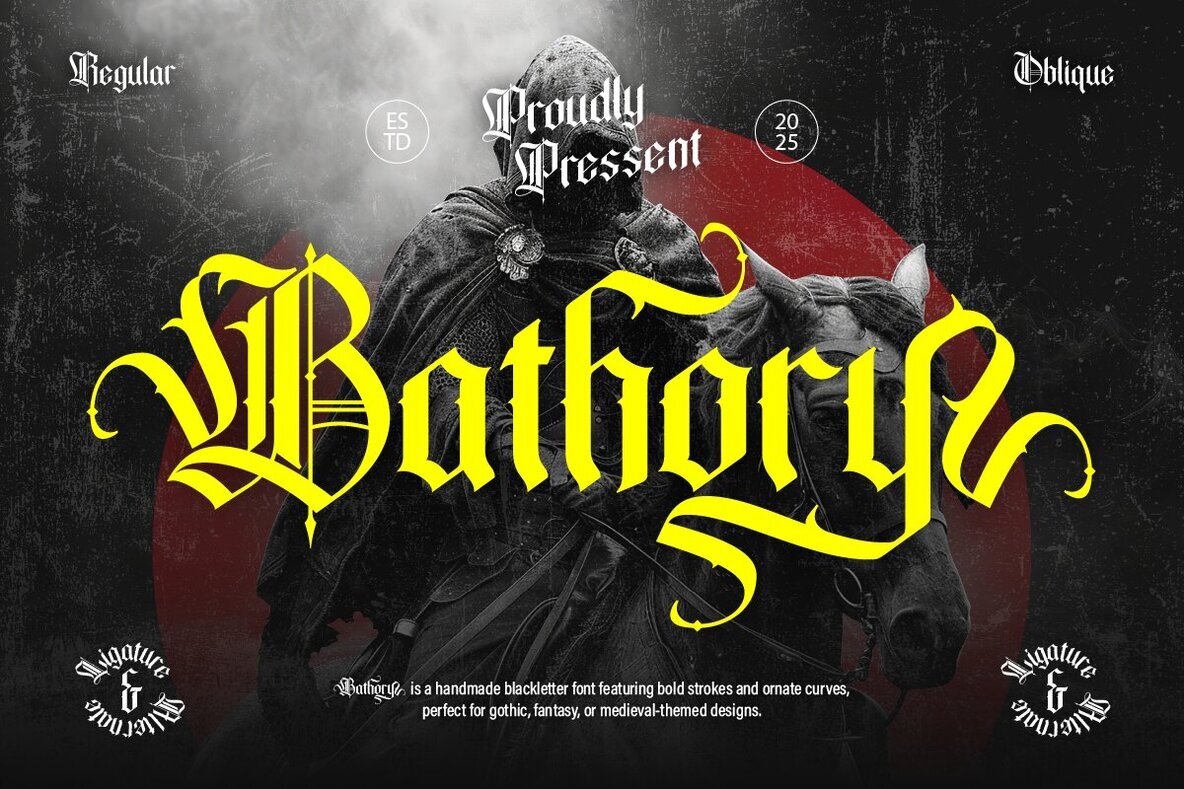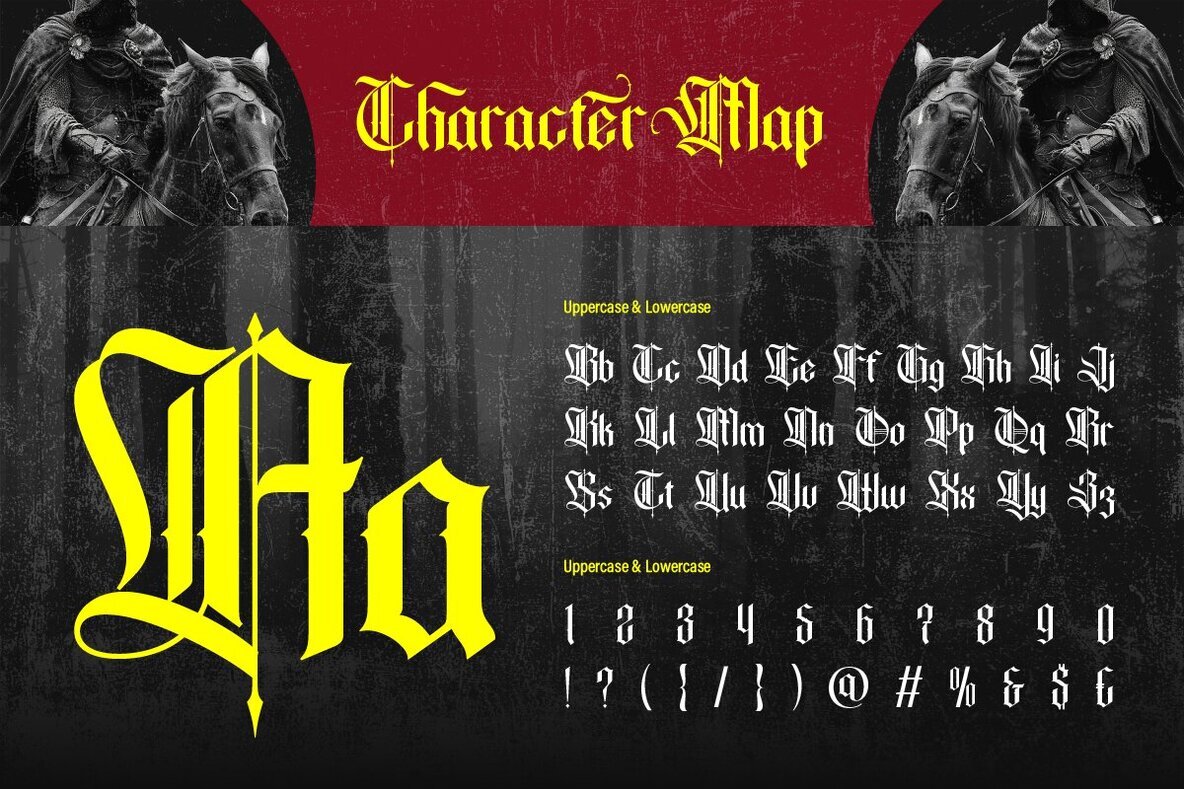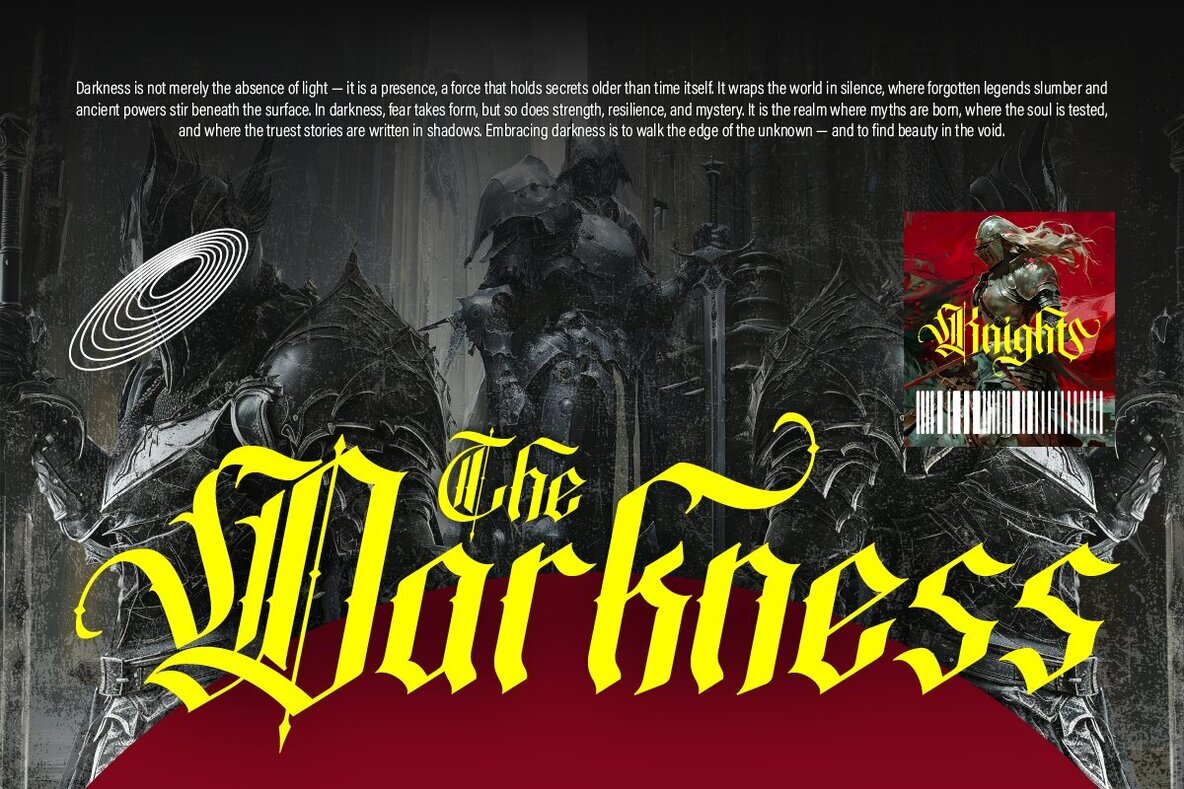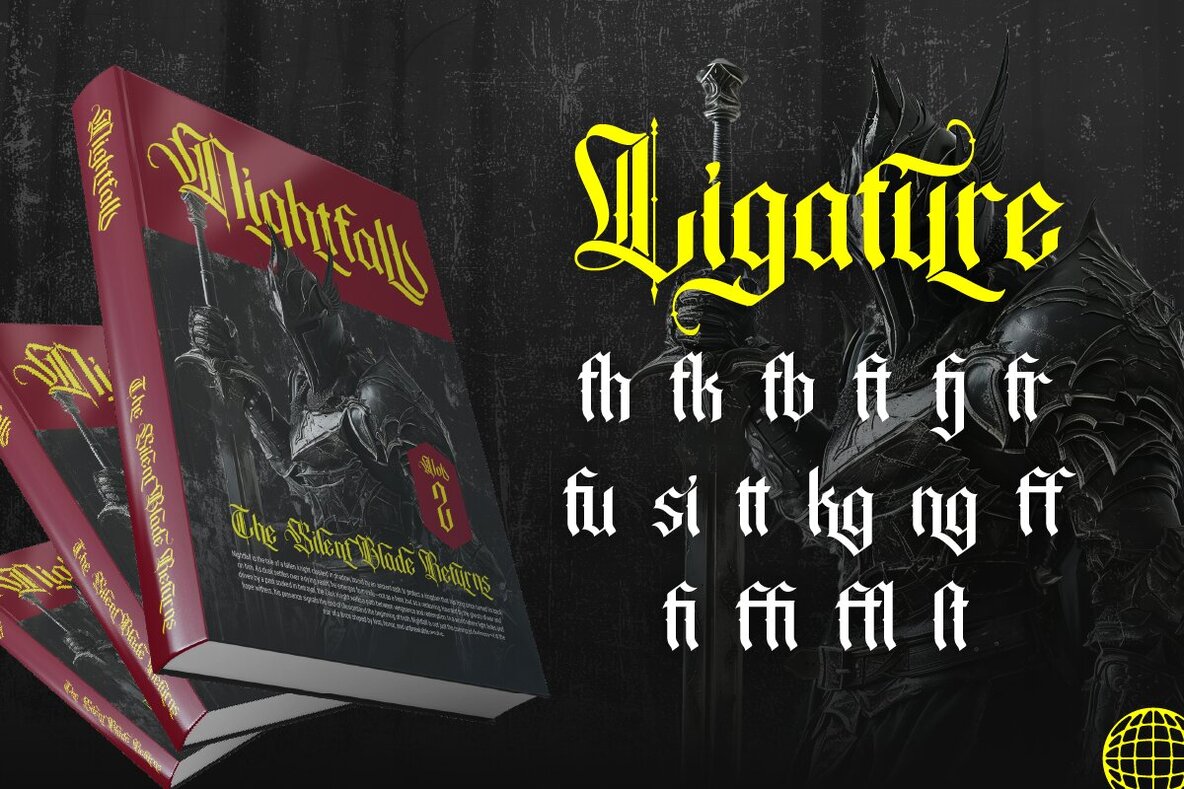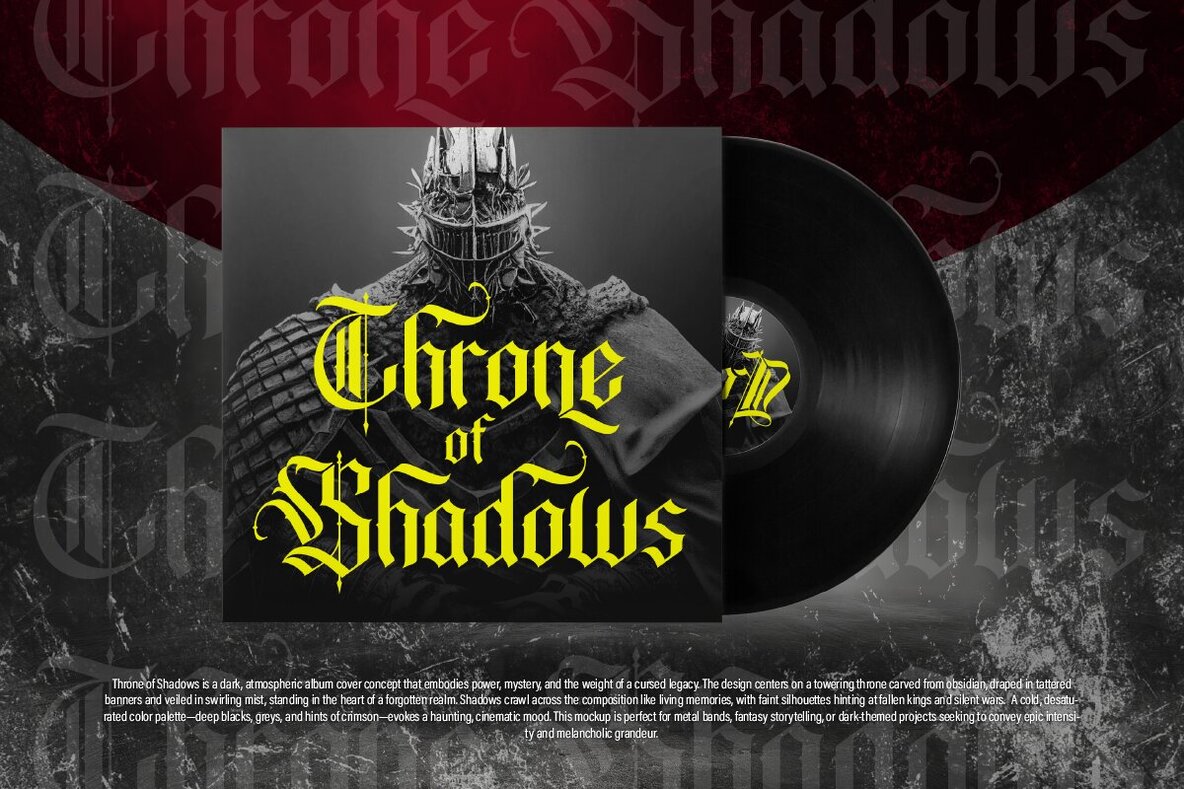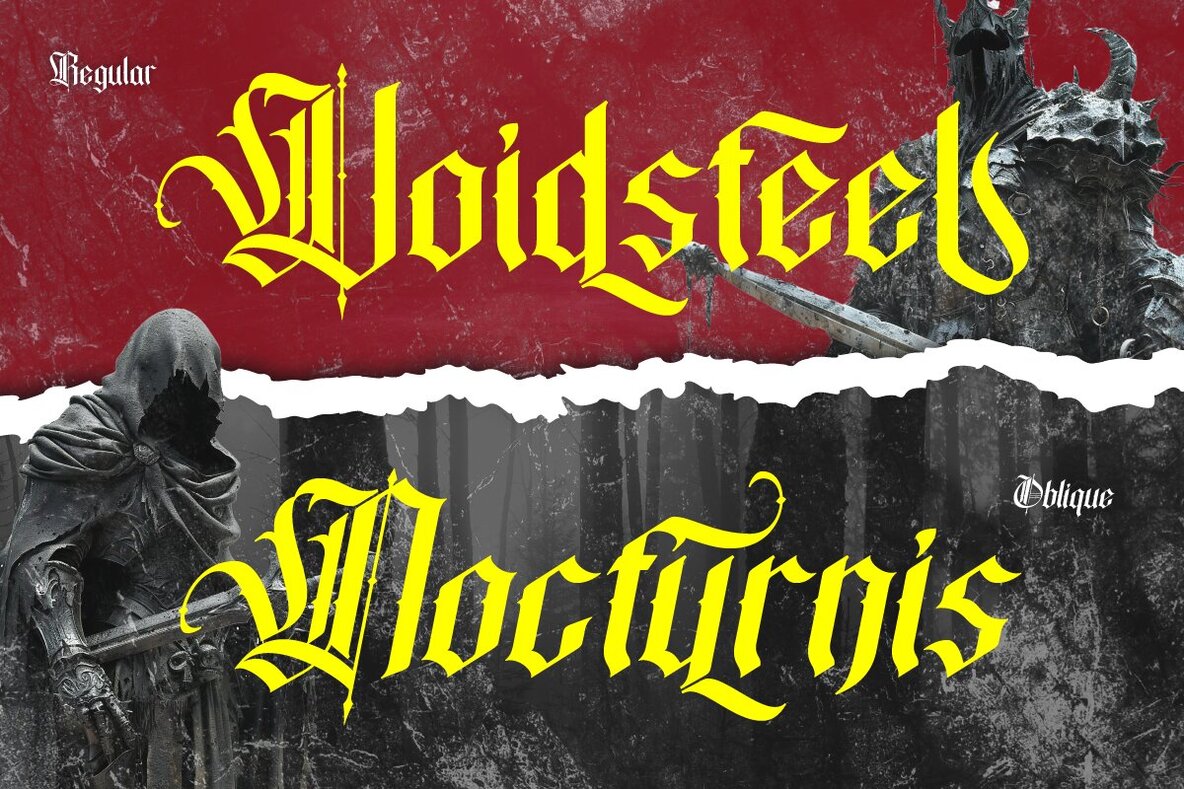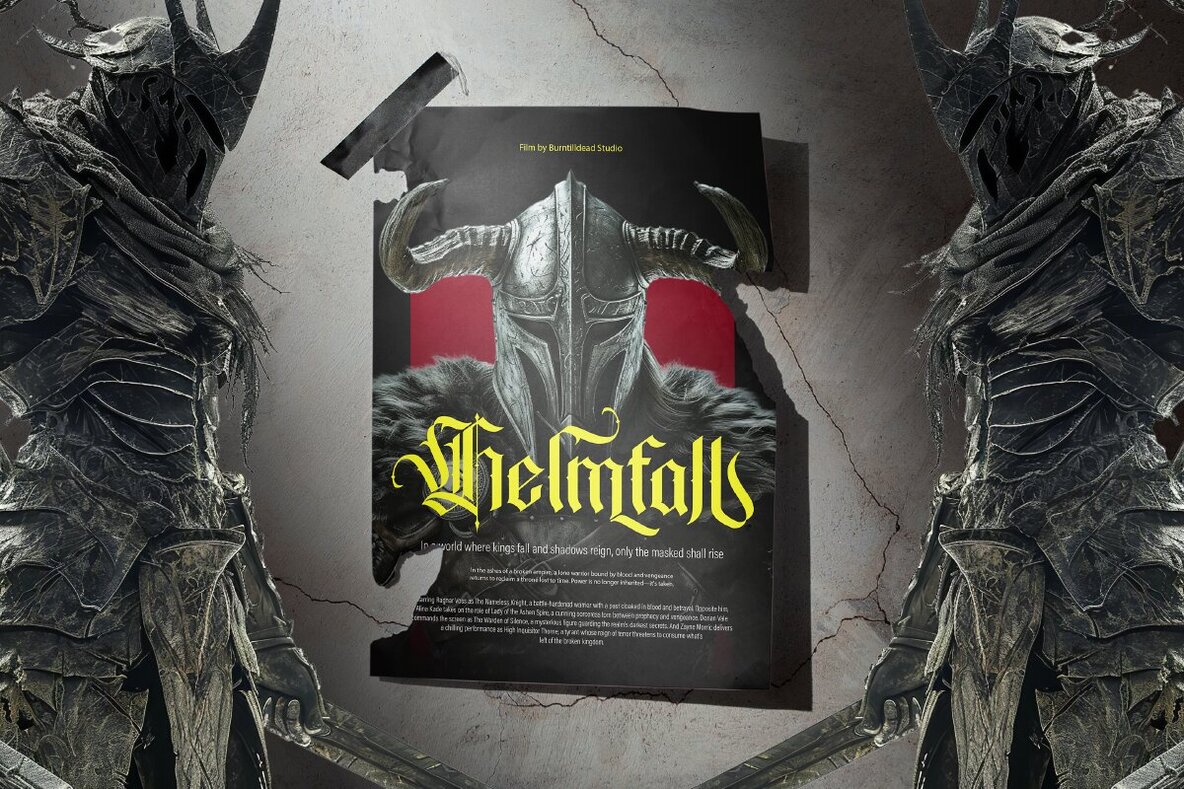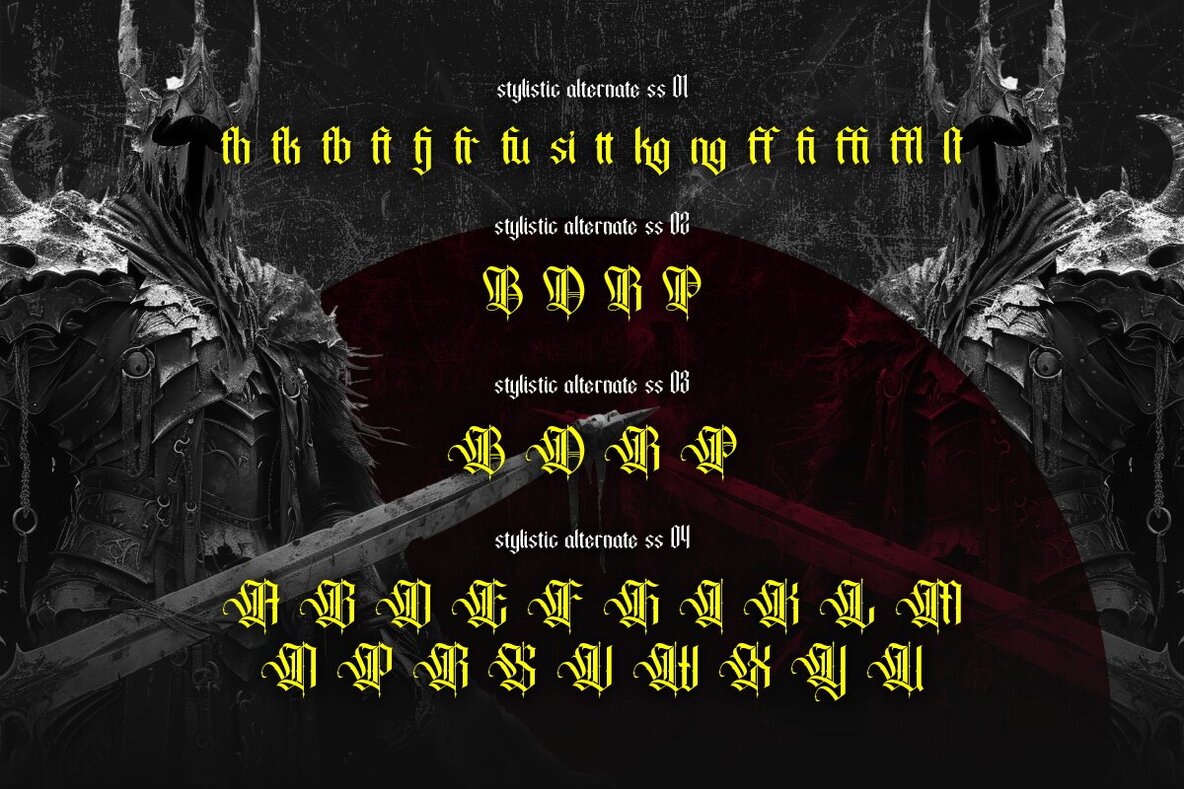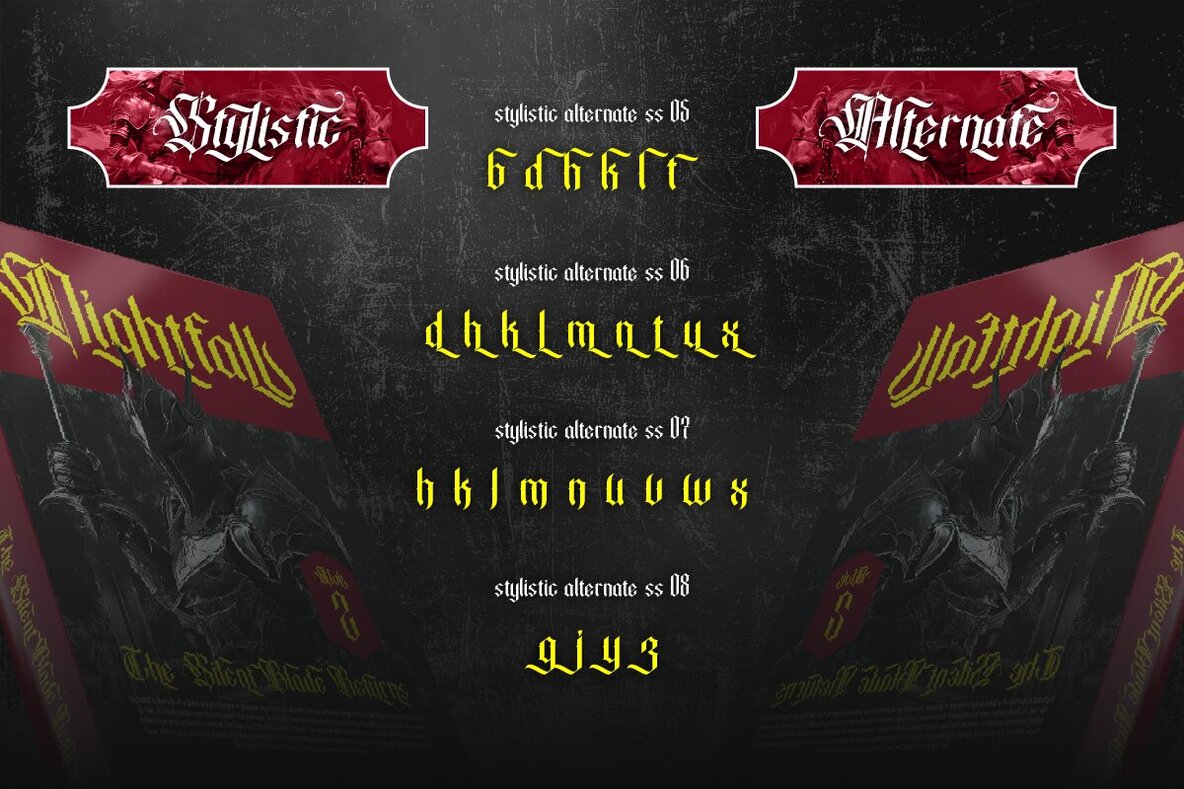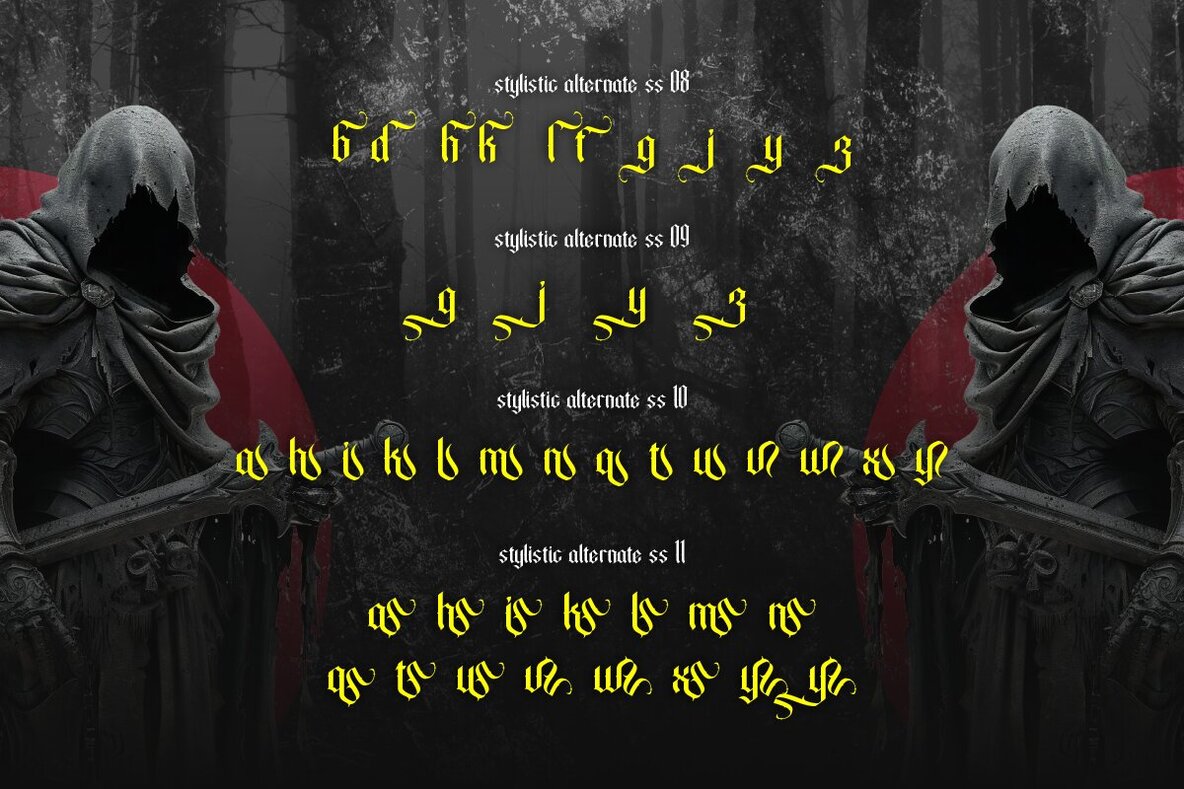
Bathory Font
Bathory Regular
Bathory Oblique
Immerse yourself in the gothic allure with Bathory, a blackletter font that exudes a bold sense of darkness and mystery. With its thick ornamental strokes, sharp curves, and dramatic flourishes, Bathory captures the essence of gothic vibes effortlessly. The font is available in two styles—Regular and Oblique—providing the visual flexibility your designs may require. Perfectly tailored for fantasy, medieval, or occult themes, Bathory complements the dark atmospheres of worlds akin to Dark Souls or Diablo. It is an ideal choice for metal band posters, game or movie covers, and festival flyers. Whether you're designing tattoo art, merchandise, book titles, or branding with a gothic or mystical touch, Bathory is the font that brings your vision to life.Bathory Blackletter Font